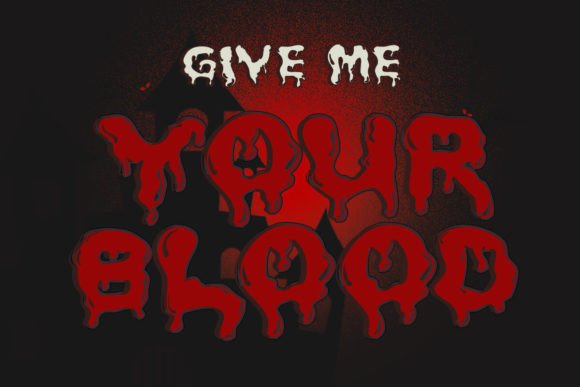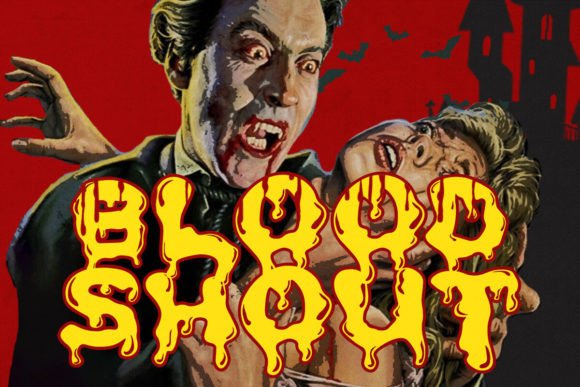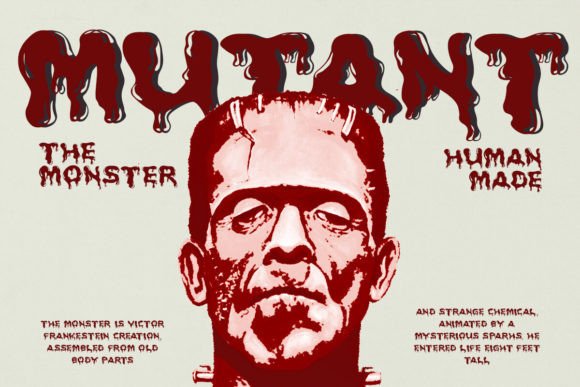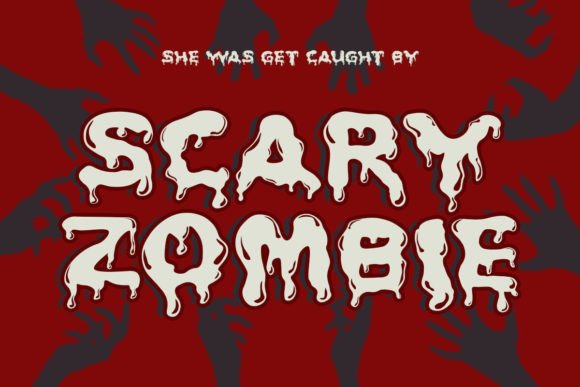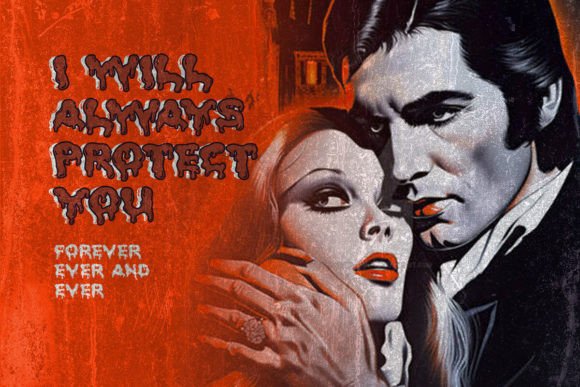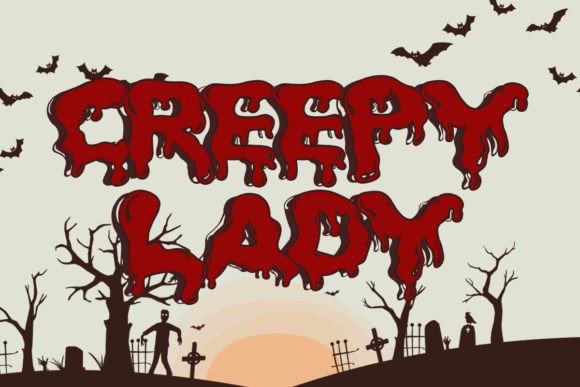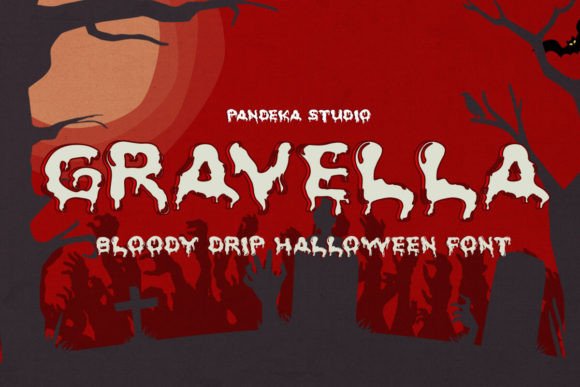
Unleash the Horror with Gravella Font: The Ultimate Typeface for Spooky Designs
Are you ready to add a dash of terror to your designs? Look no further than Gravella, the ultimate font for all things spooky, creepy, and downright scary! Perfect for Halloween-themed projects, monster fanatics, and anyone who loves the eerie vibe of a haunted night, Gravella is your go-to typeface for adding that blood-chilling touch to your designs.
The Birth of Gravella: A Font that Embodies the Spirit of Halloween
Gravella is more than just a font – it’s an experience. Its twisted and gothic letters seem to leap off the page, evoking the eerie atmosphere of a haunted mansion on a dark and stormy night. Whether you’re designing invitations for a monster mash, creating creepy crafts for a haunted house, or simply looking to add a touch of macabre to your artwork, Gravella is the perfect choice.
What Makes Gravella the Perfect Font for Spooky Designs?
So, what sets Gravella apart from other fonts? Here are just a few features that make it the ultimate typeface for spooky designs:
- Unique and Twisted Letterforms: Gravella’s letters are unlike any other font out there. With its gothic and eerie feel, this font is sure to add a touch of horror to any design.
- Perfect for Halloween-themed Projects: Whether you’re designing costumes, invitations, or decorations for Halloween, Gravella is the perfect font to use.
- Easy to Read: Despite its twisted and gothic feel, Gravella is surprisingly easy to read, making it perfect for use in a variety of designs, from posters to crafts.
- Versatile: Gravella can be used for a wide range of designs, from spooky and creepy to elegant and sophisticated.
How to Use Gravella in Your Designs
Using Gravella in your designs is easy! Here are a few tips to get you started:
- Pair it with Other Fonts: Gravella looks great when paired with other fonts, especially those with a more elegant or sophisticated feel.
- Use it for Headlines: Gravella is perfect for use in headlines, adding a touch of drama and horror to your designs.
- Experiment with Colors: Gravella looks great in a variety of colors, from bold and bright to dark and muted.
Tips and Tricks for Working with Gravella
Here are a few more tips and tricks to help you get the most out of Gravella:
- Use it for Crafts: Gravella is perfect for use in crafts, such as making spooky decorations or creating creepy cards.
- Experiment with Different Sizes: Gravella looks great in a variety of sizes, from small and subtle to large and bold.
- Don’t be Afraid to Get Creative: Gravella is a font that encourages creativity and experimentation, so don’t be afraid to try new things!
In conclusion, Gravella is the ultimate font for anyone looking to add a touch of horror to their designs. With its unique and twisted letterforms, ease of use, and versatility, Gravella is perfect for Halloween-themed projects, monster fanatics, and anyone who loves the eerie vibe of a haunted night. So why wait? Download Gravella today and start creating your own spooky designs!
Gravella is a font that is sure to add a touch of horror to any design. With its unique and twisted letterforms, ease of use, and versatility, Gravella is perfect for anyone looking to create spooky and creepy designs. So why wait? Download Gravella today and start creating your own terrifying designs!